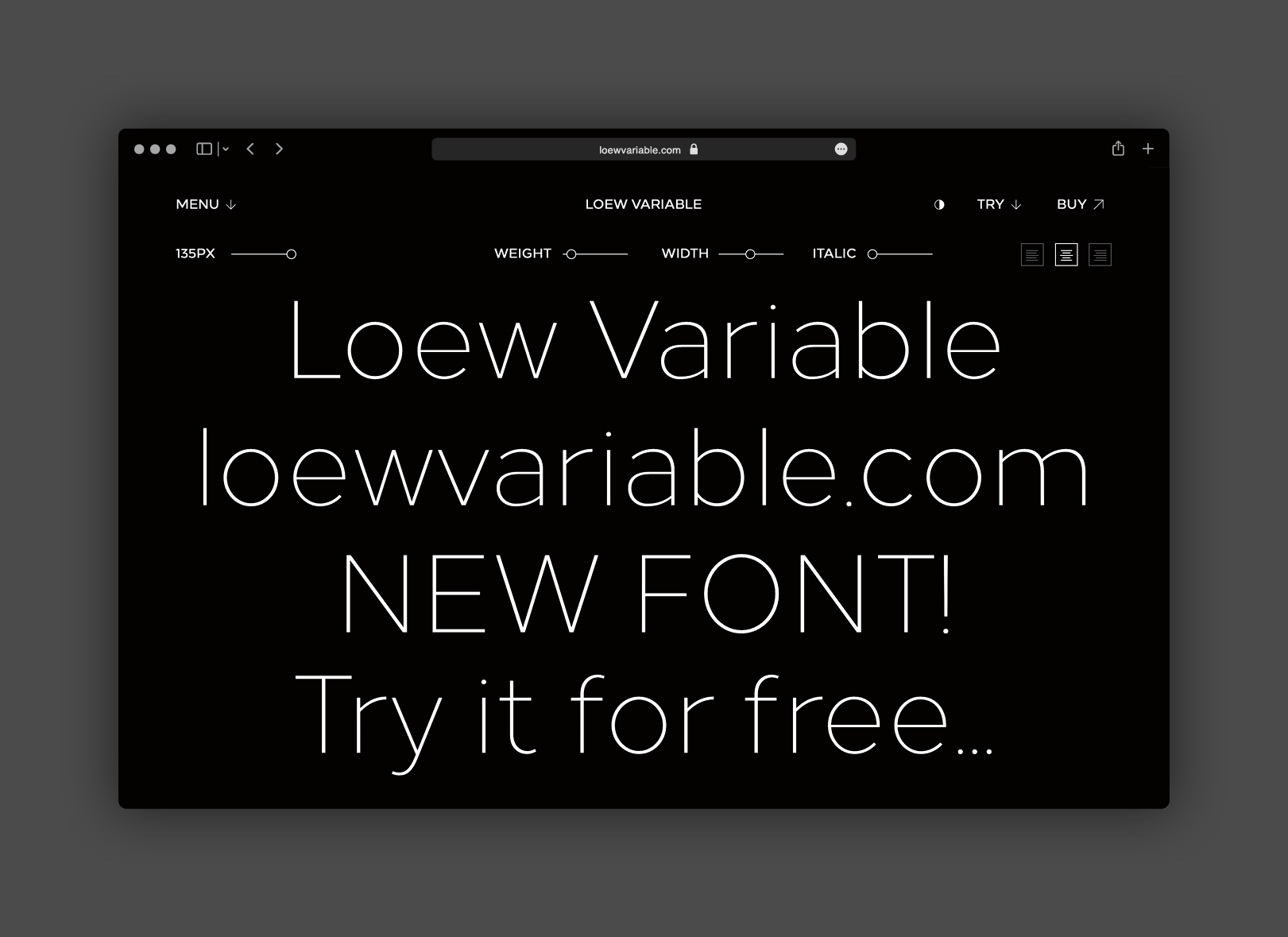
Loew Variable is a geometric sans serif typeface influenced by the early industrial designers. Pure mechanical shapes are carefully adjusted to give the characters the correct form, function and usability. These subtle human touches combined with the technical detail, provide excellent readability at large and small point sizes.
In 2022, Loew was made into a variable font. It contains all the weights of Loew plus any style in-between. It also includes condensed widths to work in narrow spaces without overstretching and extended widths that command attention across physical objects and large-scale print.